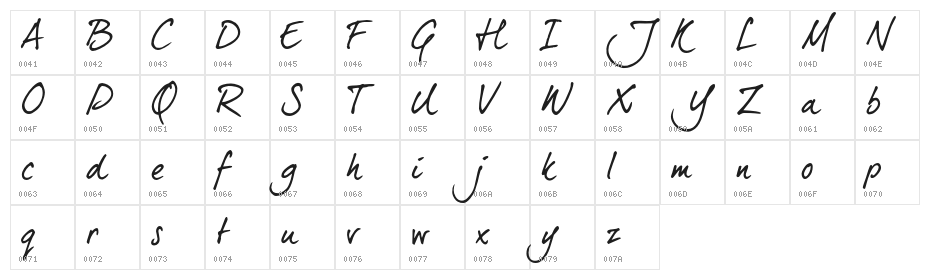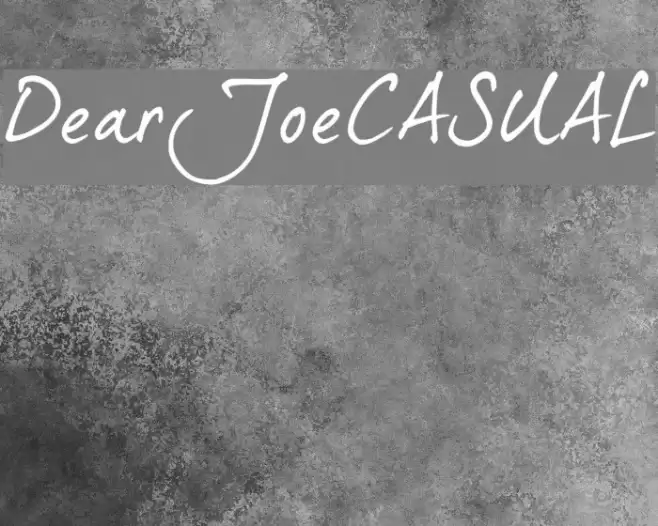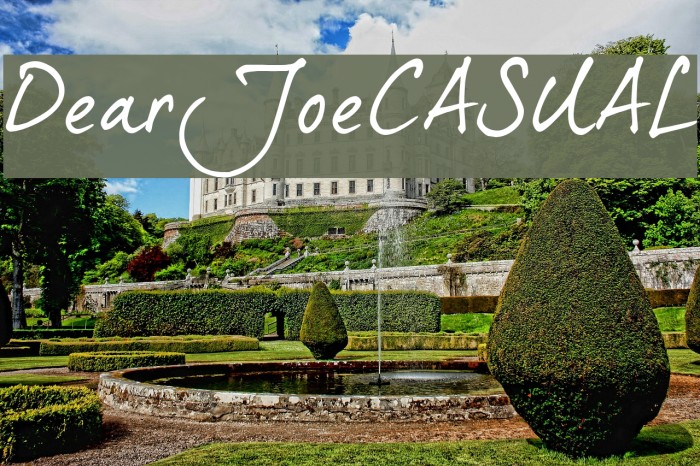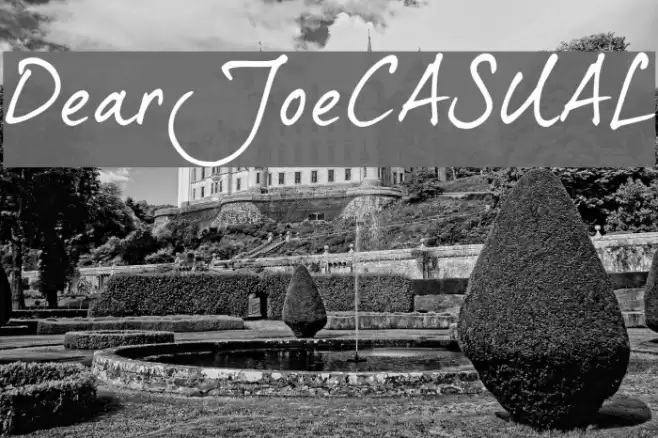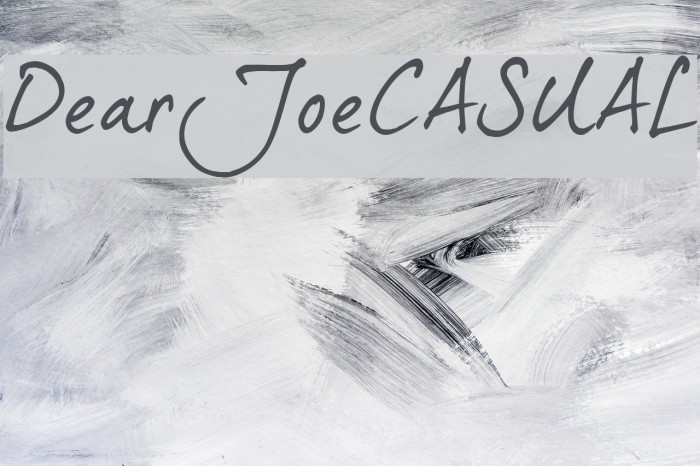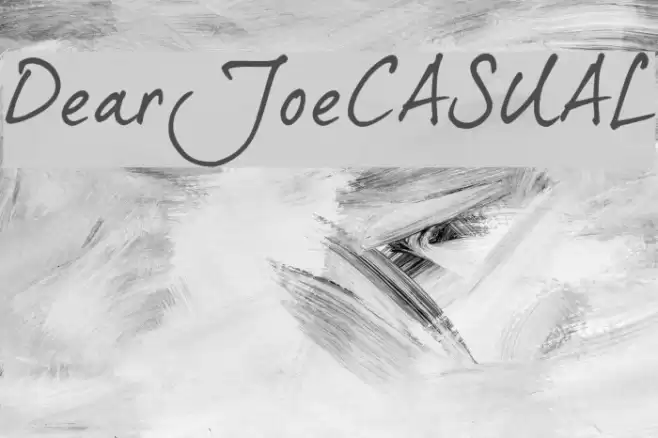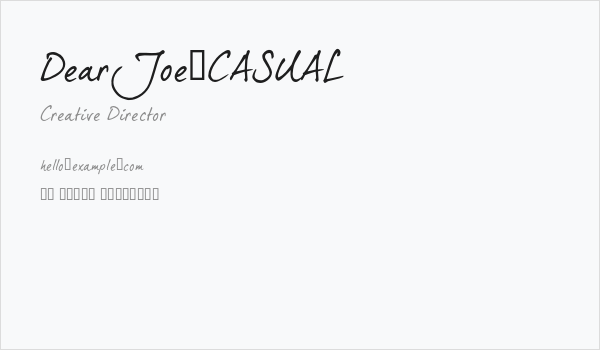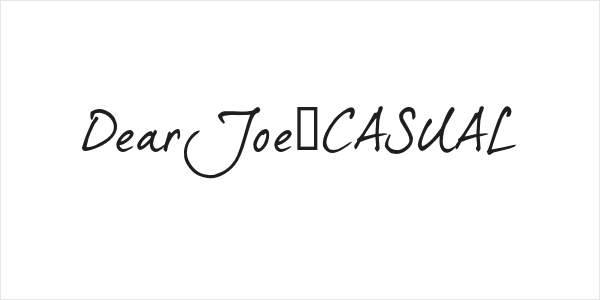
DearJoe5CASUAL Font
DearJoe5CASUAL Description
This font exudes a casual, handwritten style with a flowing script that mimics natural handwriting. The uppercase letters are slightly more formal, maintaining a consistent height and width, while the lowercase letters exhibit a playful and dynamic quality with varying slants and loops. The strokes are smooth and connected, giving a sense of continuity and ease. The overall appearance is relaxed yet elegant, making it suitable for projects that require a personal touch. The font's organic curves and informal style make it ideal for creative and artistic applications.